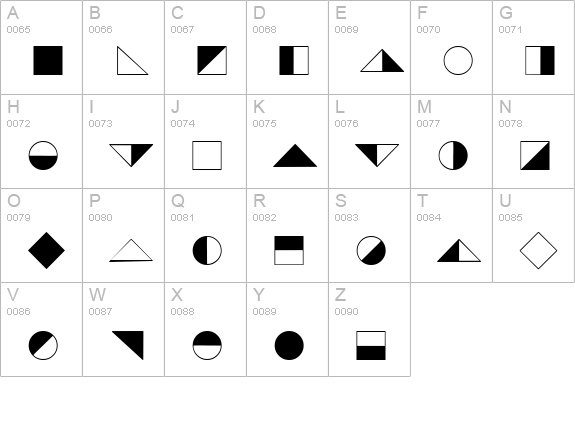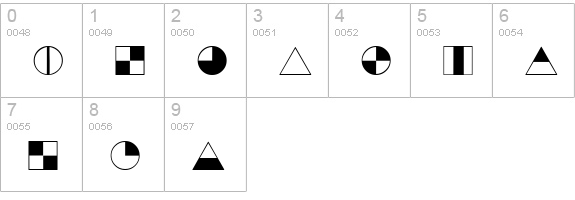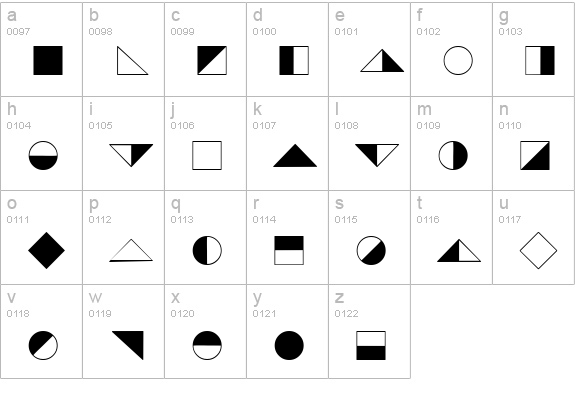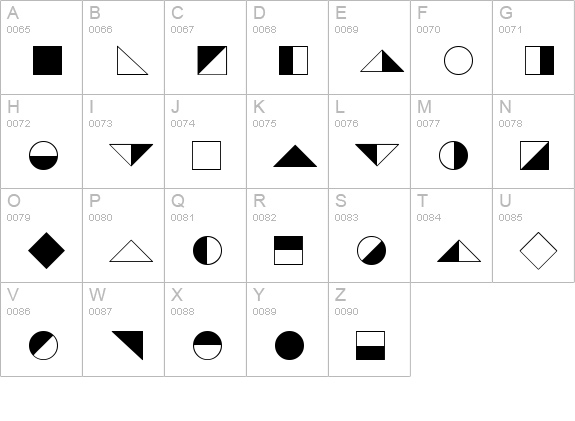
Blackwhite Font Details
Blackwhite font is a stylish and versatile typeface that combines the elegance of black with the simplicity of white, creating a striking contrast that is perfect for a wide range of design projects. With its clean lines and modern aesthetic, Blackwhite font is sure to make a bold statement in any text or graphic layout. This unique font is ideal for branding, packaging, posters, logos, and more. Its sleek design will add a touch of sophistication to any project, while its versatility allows for seamless integration across various design styles. Best of all, Blackwhite font is available for free download at FontsMarket.com. Simply visit the website to access this stunning font and elevate your design projects with its contemporary flair. Don't miss out on the opportunity to enhance your visuals with this eye-catching typeface that is both modern and timeless.